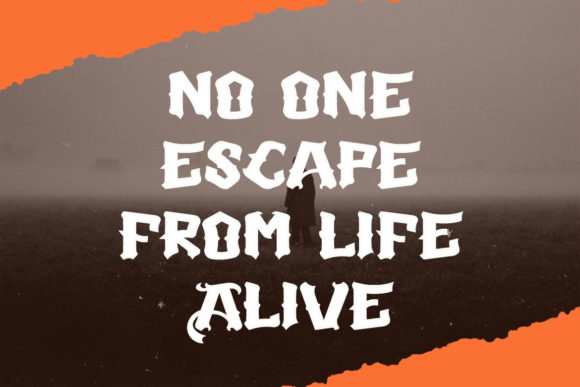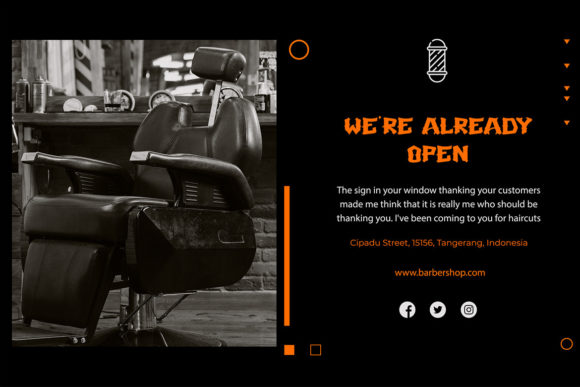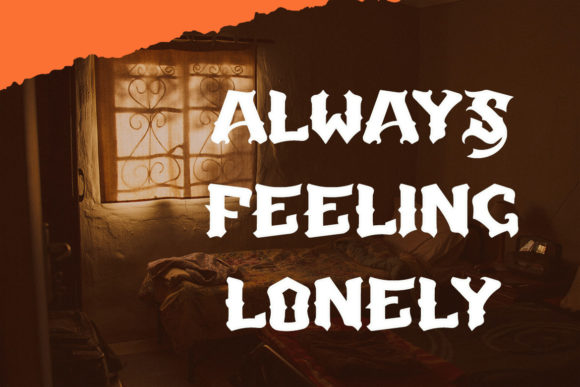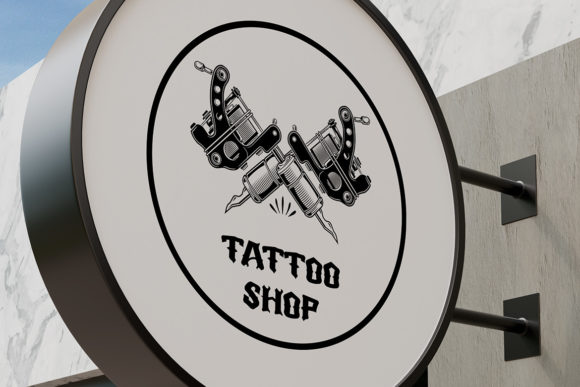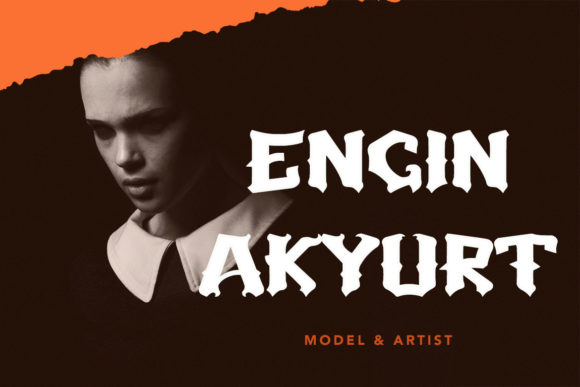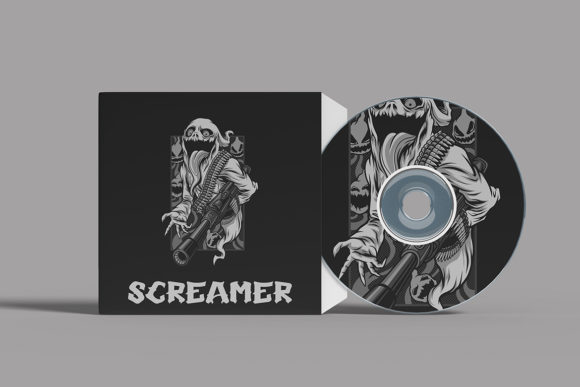
The Perfect Font for Your Next Big Project
Remember that moment when a single design element brought your entire project to life? Maybe it was a bold color palette, a clever illustration, or a well-placed font choice. For us, it’s often the latter. There’s something about a font that can elevate an entire design from bland to grand, and that’s exactly what the Alive Font does.
Alive Font is a display font that’s designed to make a statement. With its bold, thick lettering, it’s perfect for headings, titles, and any other element where you want to draw attention. Whether you’re designing a logo, a brochure, or a social media campaign, the Alive Font is an incredibly valuable asset to have in your toolkit. It’s versatile, eye-catching, and guaranteed to leave a lasting impression.
Alive Font Key Features
- Font Family: Alive Font comes in 4 different font families: Alive, Alive Script, Alive Sans, and Alive Display.
- Size: Each font family includes 6 font weights (Thin, Light, Regular, Medium, Bold, Black) and 4 font styles (Normal, Italic, Bold, Bold Italic).
- Resolution: Optimized for high-resolution displays, making it perfect for digital use in web design, mobile apps, and advertising.
- Unique Characteristics: Alive Font features a unique blend of modern and vintage elements, with a focus on readability and versatility.
- Character Set: Includes a comprehensive character set, including Latin, Cyrillic, and Greek alphabets, as well as punctuation and symbols.
Alive Font Review
As a designer, I was excited to dive into the Alive Font and see what it had to offer. Here’s my honest take.
- The Alive Font is incredibly versatile, suitable for a wide range of design projects, from logos and branding to digital products and publications.
- The font’s modern, dynamic feel makes it perfect for creating attention-grabbing headlines and titles.
- The font’s dynamic feel can sometimes come across as overbearing or chaotic, particularly in text-heavy content.
- The font’s lack of a clear distinctiveness can make it difficult to recognize and remember.
Overall, I’d say the Alive Font is a solid choice for designers looking for a modern, dynamic font. While it may not be perfect, its versatility and open-source nature make it a great option for a wide range of design projects.
Alive Font is ideal for:
– Creating attention-grabbing headlines or titles
– Designing social media graphics or advertisements
– Adding a touch of personality to presentations or documents
– Creating unique and eye-catching branding materials